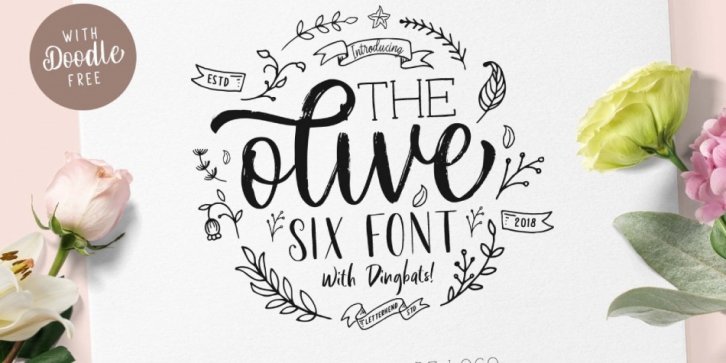
Designed by Hendry Juanda, Olive - Hand Lettering Tool Kit is a hand display, script and dingbat font family. This typeface has seven styles and was published by Letterhend Studio.
Introducing, Olive - Hand Lettering Tool Kit!!
Yes, it is a Tool Kit. The reason why we named it as a Tool Kit is because you will get tons of item in one product! This product will contain 6 fonts and 100hand-drawn illustration in vector! Yeah you hear it right! This product will provide anything you need to create a lovely quotes and logo. Just mix and match the fonts and then you can get a beautiful lettering that you can use in any media you want! Very suitable for wedding invitation, greeting cards, merchandise, apparel, poster / print design, etc. All the fonts is also support multilingual. Also, you will get 12 premade logo!
6 FONTS:
LS Olive 01 Script (OTF & TTF)
LS Olive 02 Sans (OTF & TTF)
LS Olive 03 Signature (OTF & TTF)
LS Olive 04 Hand (OTF & TTF)
LS Olive 05 Brush (OTF & TTF)
LS Olive 06 Slab (OTF & TTF)
LS Olive 07 Dingbats (OTF & TTF)
· Script
· Sans
· Signature
· Hand
· Brush
· Slab Serif
· Dingbats